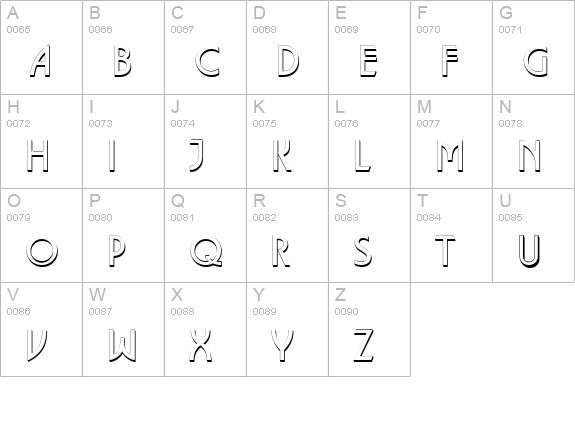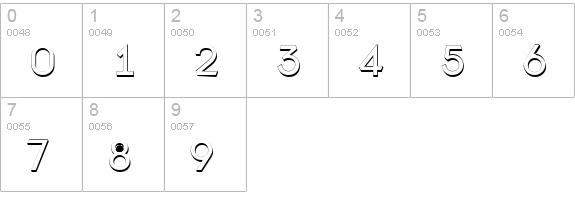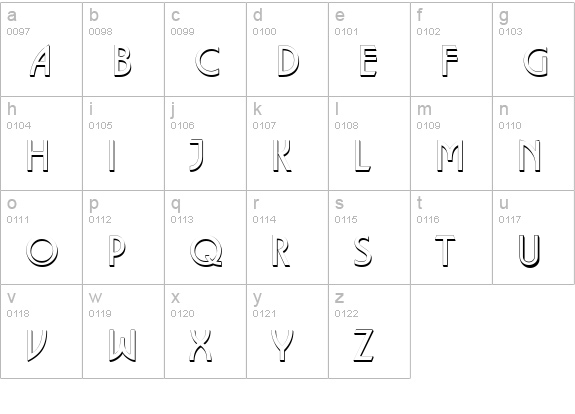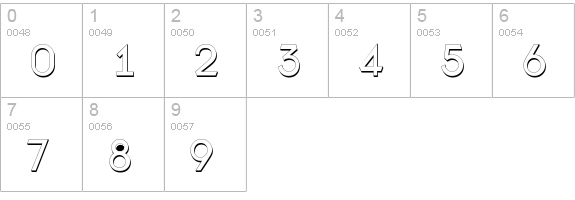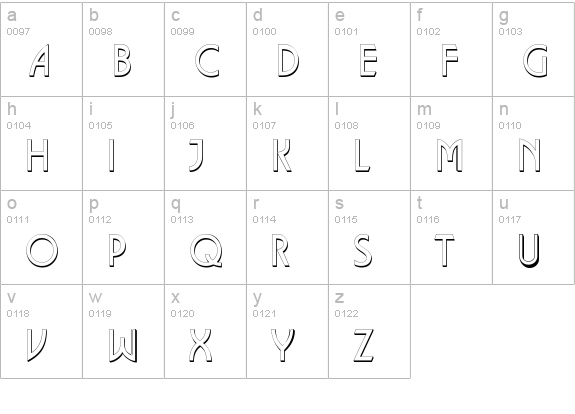
a_Lancet3D Font Details
Introducing Lancet3D font - a captivating display typeface that exudes sophistication and elegance. This font features three-dimensional letterforms with sharp angles and sleek lines, making it perfect for creating eye-catching headings, logos, and signage. Lancet3D font adds a modern and dynamic touch to any design project, whether it be for print or digital applications. What sets Lancet3D font apart is its unique design that combines a sense of depth and dimension with a minimalist aesthetic. The clean and crisp look of this font makes it versatile and suitable for a wide range of design purposes, from branding and advertising to editorial and web design. And the best part? Lancet3D font is available for free download at FontsMarket.com. Simply head over to the website to get your hands on this stunning font and start incorporating it into your creative projects today. Elevate your designs with Lancet3D font and make a lasting impression with its modern and stylish appeal.